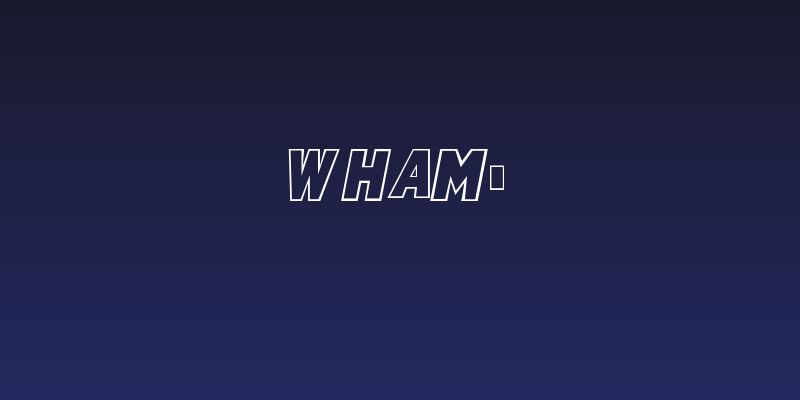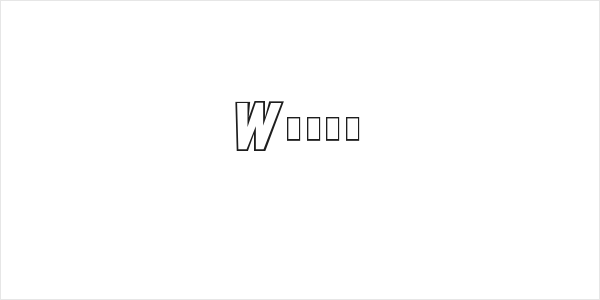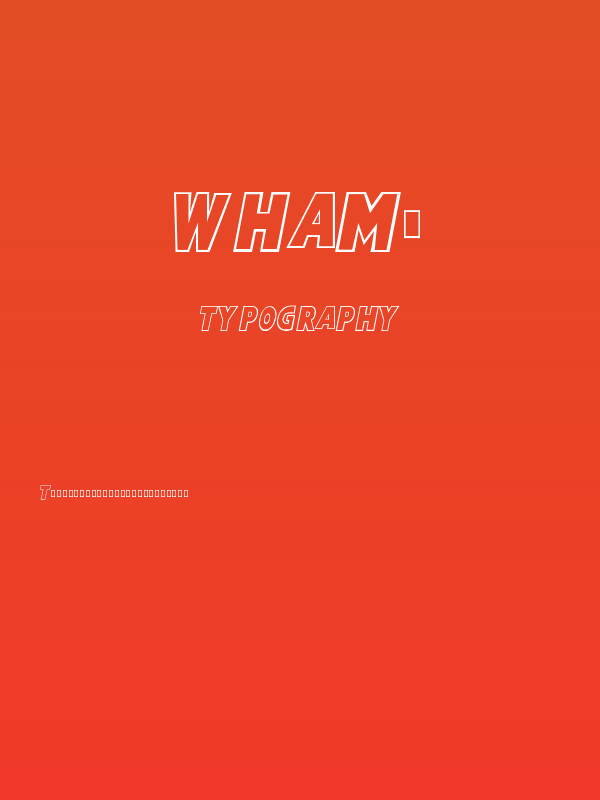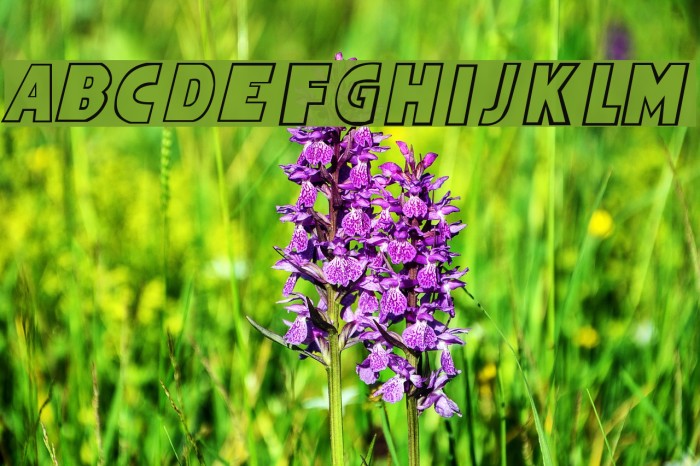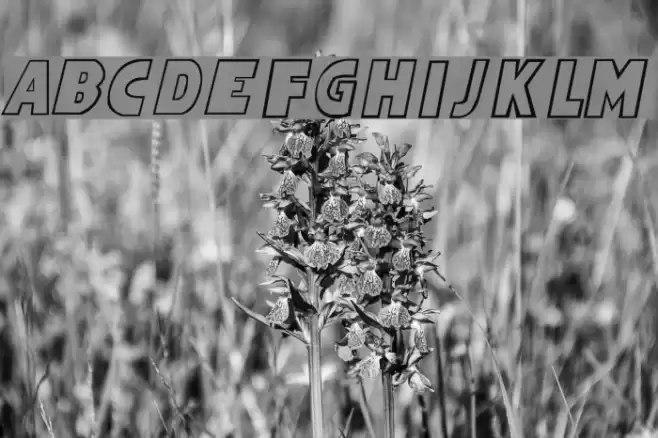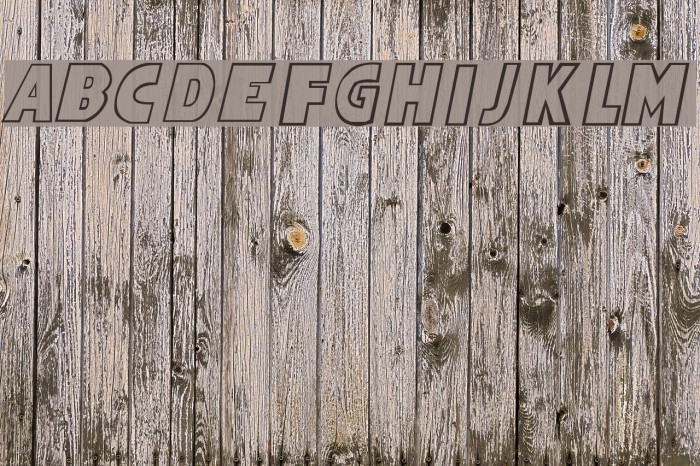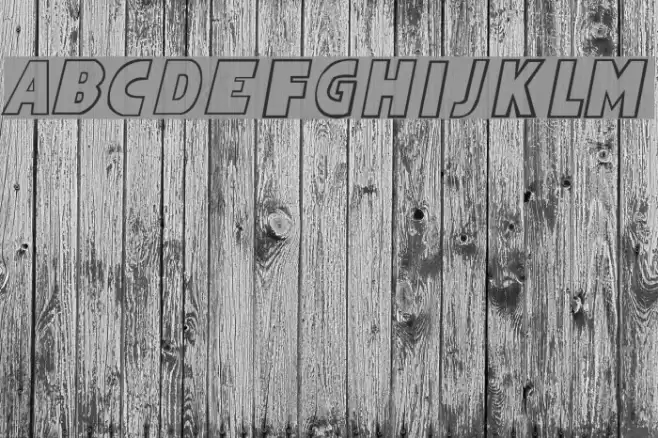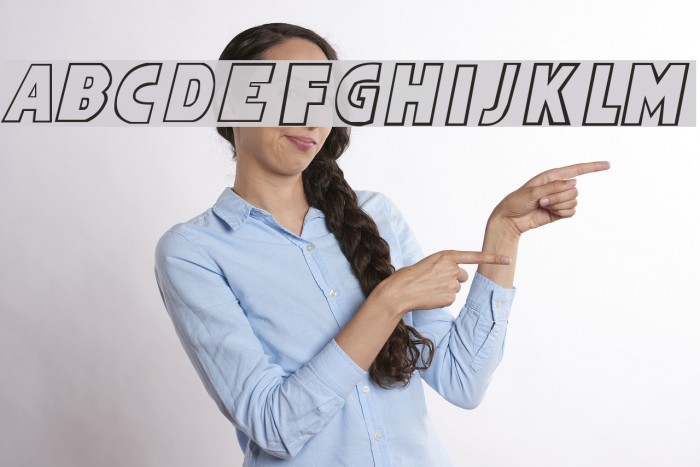
Wham! Font
| Gesamtstil | Dynamic, Energetic |
| Vorgeschlagene Projekte | Perfect for comic book titles, action-themed posters, and eye-catching headlines. |